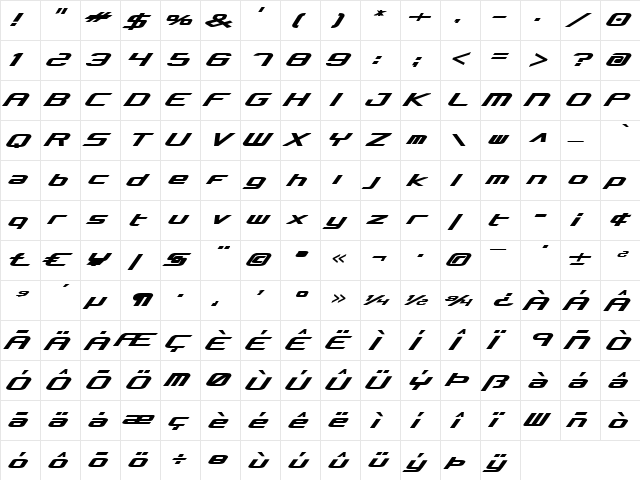
Concielian Bold Bold
Design Context for Concielian Bold Typeface
Concielian Bold is a composed and adaptable typeface that performs quietly and consistently across a wide range of design contexts. The heavy weight commands attention and anchors typographic hierarchies.